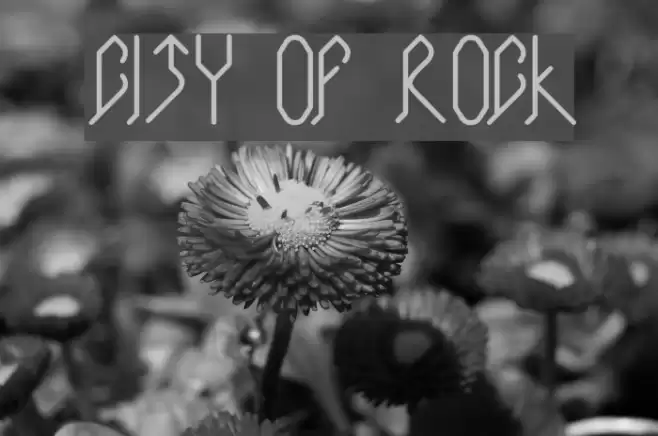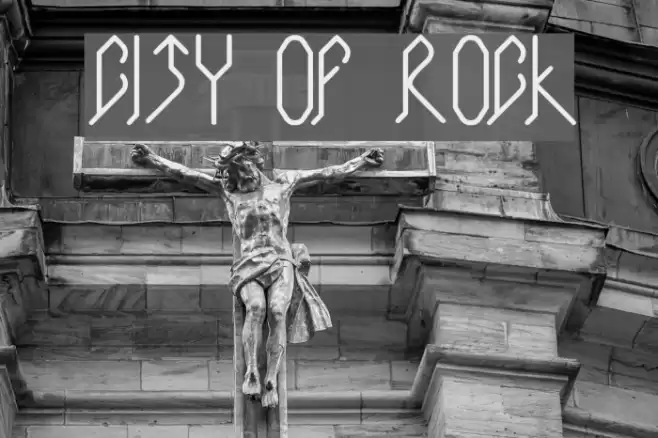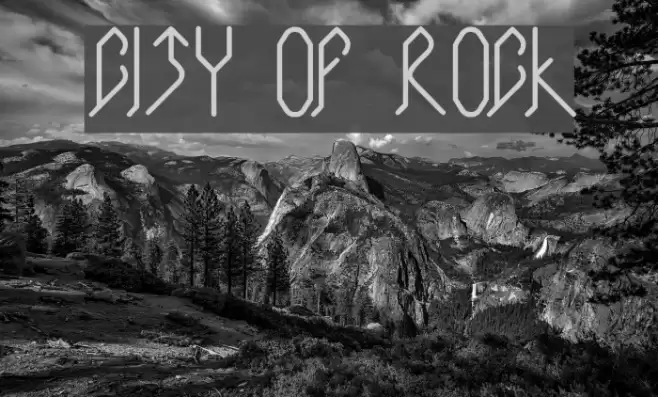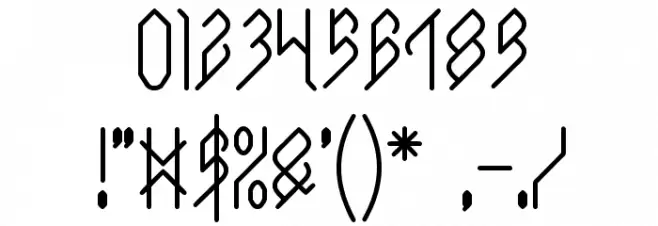
CITY OF ROCK Font
CITY OF ROCK Description
This font features a unique, angular design reminiscent of ancient runic inscriptions. Each character is crafted with sharp, geometric lines that create a sense of movement and energy. The uppercase and lowercase letters maintain a consistent style, with distinct angles and a slightly condensed form. Numbers and special characters follow the same angular aesthetic, ensuring uniformity across all glyphs. The overall appearance is bold and striking, making it ideal for projects that require a strong visual impact.
An angular, runic-inspired font with sharp geometric lines from Uncategorized fonts.
- Proposed Projects: Ideal for music album covers, video game titles, fantasy-themed posters, and branding for edgy or alternative products.